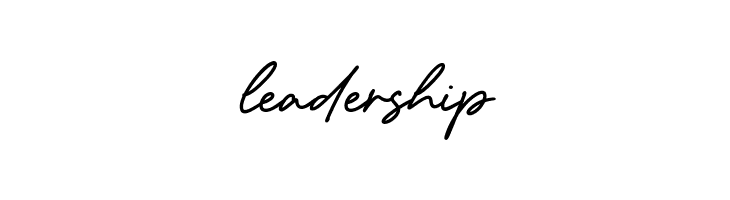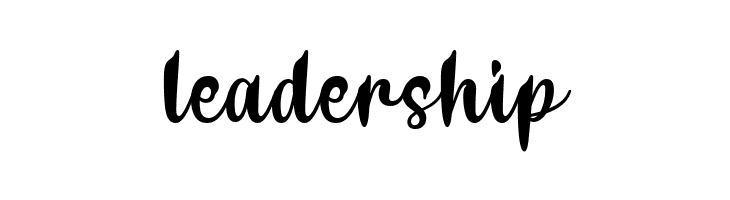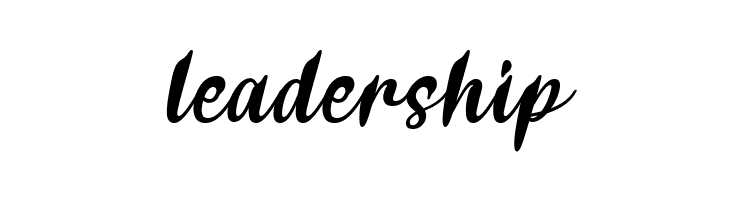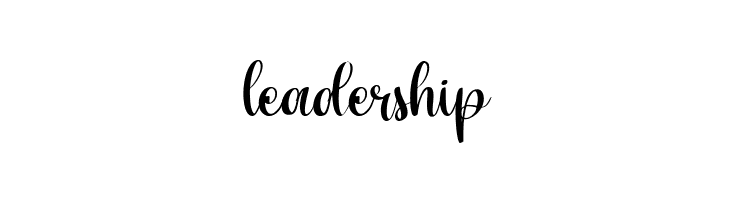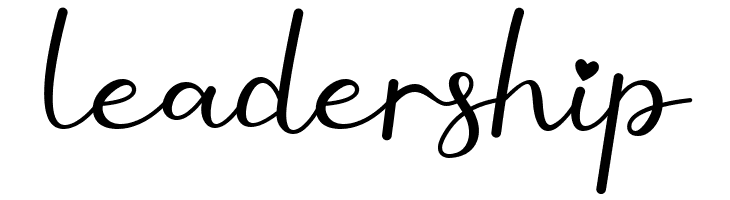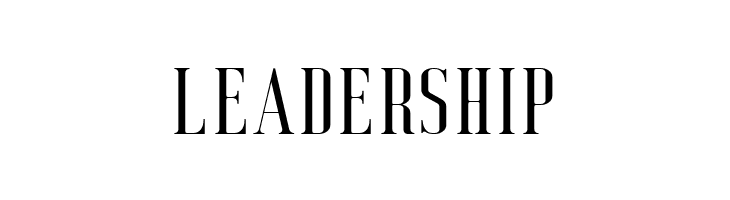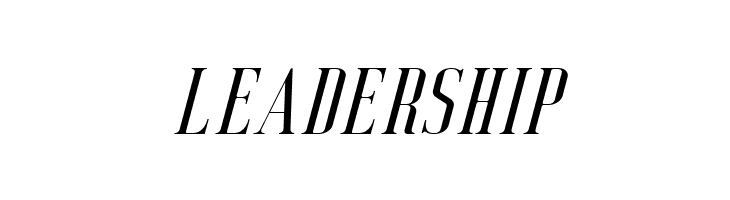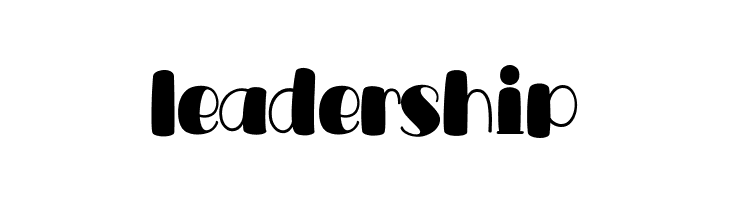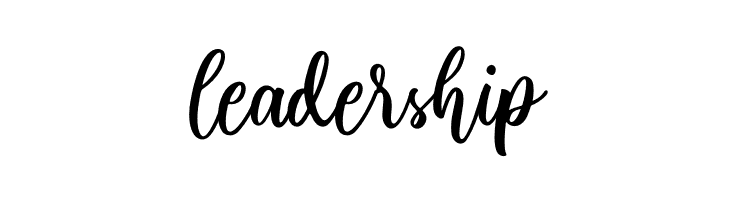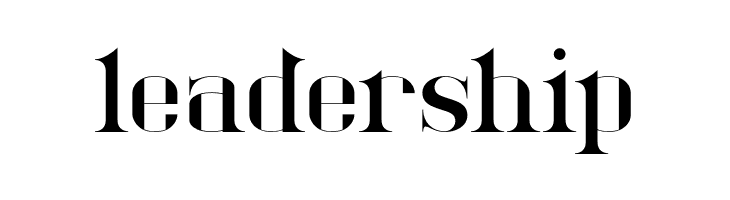
An elegant script font with flowing, cursive letters and a classic style.
An elegant script font with flowing, cursive letters and a sophisticated appearance.
An elegant italic font with sleek, elongated letterforms and high contrast strokes.
A sophisticated, high-contrast serif font with tall, narrow letterforms.
An elegant italic font with high contrast and sharp serifs, perfect for sophisticated designs.
A tall, elegant font with high contrast and sharp serifs, perfect for sophisticated designs.
A bold, high-contrast serif font with sharp serifs and elegant style.
An artistic and elegant font with modern and classic elements.
A playful, bold handwritten font with dynamic strokes and smooth curves.
A playful, handwritten script font with bold, elegant curves.
A cursive, italic font with bold, flowing strokes and a handwritten feel.
A sophisticated, elegant handwritten font with fluid, continuous strokes.
A playful and energetic script font with fluid, connected strokes.
A bold, ornate blackletter font with gothic influences.
Ornate and decorative font with intricate embellishments.
A playful, hand-drawn font with a sketch-like texture and bold outlines.
A decorative pattern of stylized question marks with ornamental elements.
A cursive, handwritten font with elegant and fluid strokes.
A geometric, double-line font with a futuristic and modern design.
A modern, sleek font with clean lines and a geometric structure.
A sleek, modern font with clean lines and a slightly condensed structure.
A lively, expressive handwritten font with fluid, connected letterforms.
A modern, sleek font with tall, narrow characters and a clean, structured appearance.
An elegant, flowing script font with graceful swashes and smooth cursive strokes.
A graceful and fluid script font with elegant, sweeping curves.
A dynamic and fluid script font with an elegant, handwritten style.
A dynamic and fluid script font with elegant, flowing cursive letters.
A bold, hand-drawn font with a playful and artistic style.
A bold, angular font with a modern, geometric style.
A fluid and elegant script font with a dynamic cursive style.
An elegant script font with flowing, cursive letterforms and ornate details.
An elegant script font with flowing, cursive strokes and decorative flourishes.
A bold, hand-painted style font with an expressive and artistic appearance.
A whimsical and elegant script font with flowing, ornate letters.
A playful and elegant handwritten script with charming embellishments.